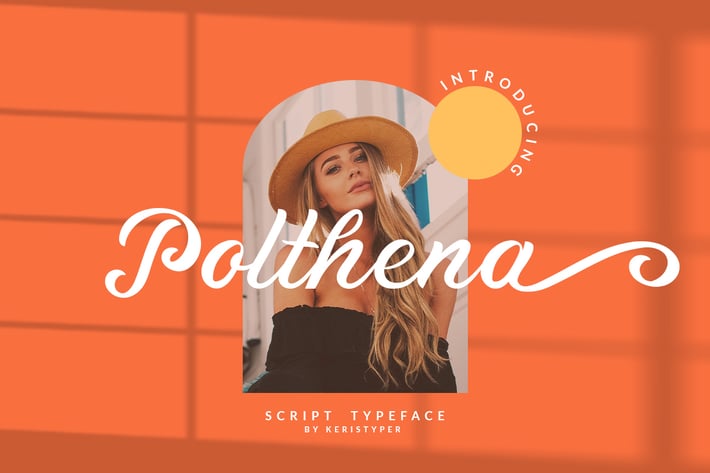
Polthena Script Font
Polthena is a brush script typeface created by skilled hands which makes it look very refined. Its subtle shapes make this font suitable for all your projects.
Polthena Brush Script is perfect for branding projects, logo, wedding designs, social media posts, advertisements, product packaging, product designs, label, photography, watermark, invitation, stationery and any projects that need handwriting taste.
Standard & Multilingual glyphs